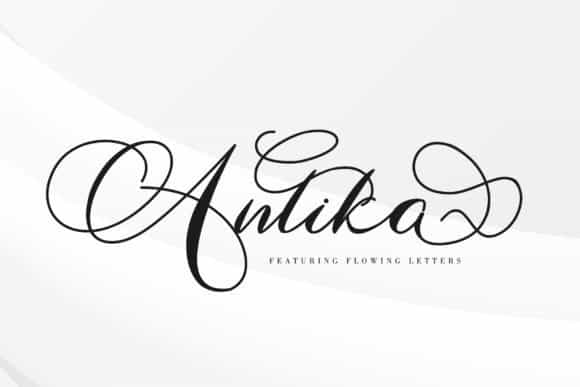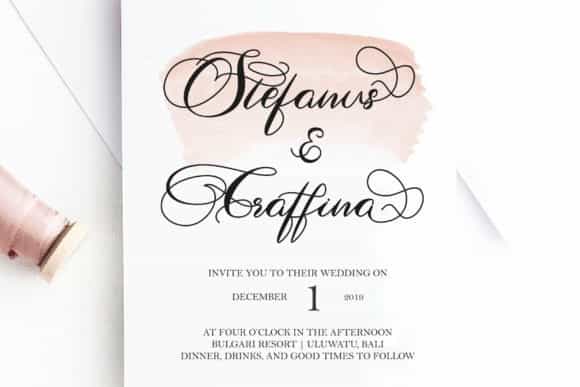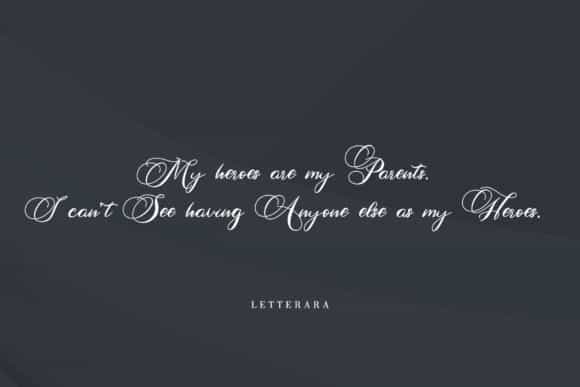
Antika Font is the sweet calligraphy modern script style, the decorative characters, and the dancing baseline! So beautiful on invitation like greeting cards, branding materials, business cards, quotes, posters, and many more.